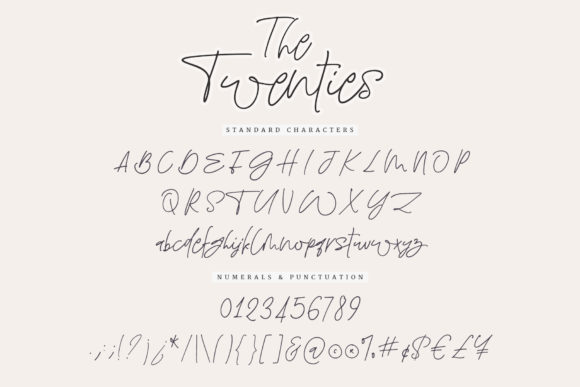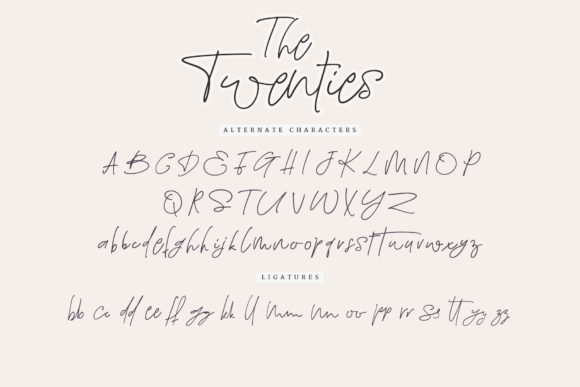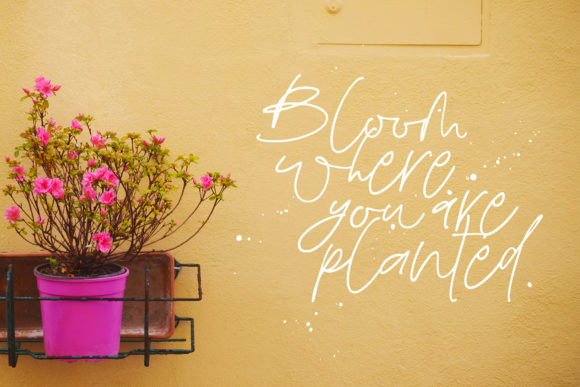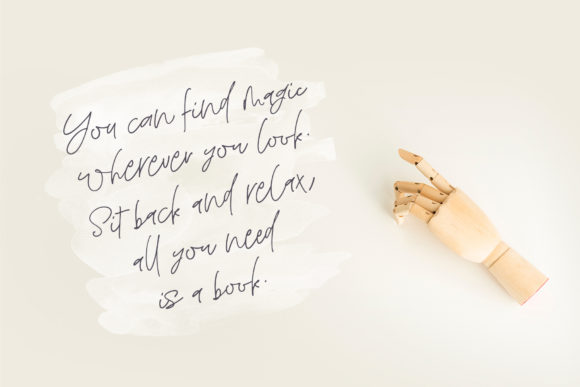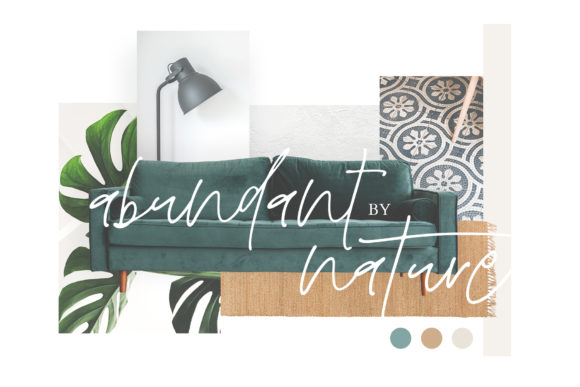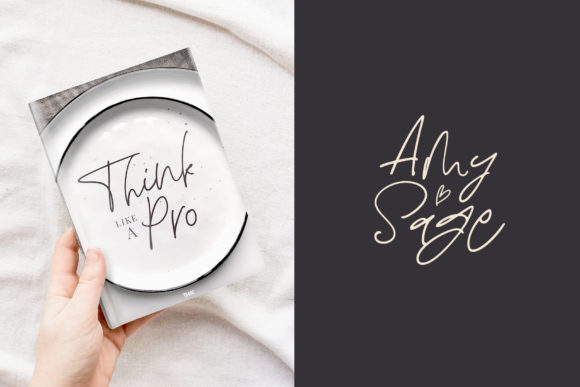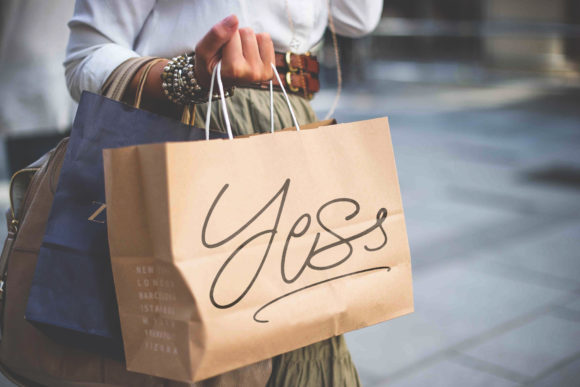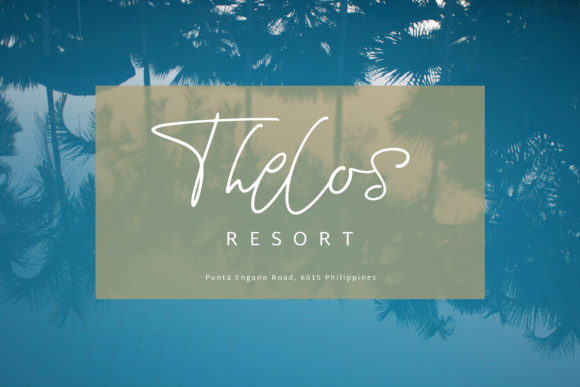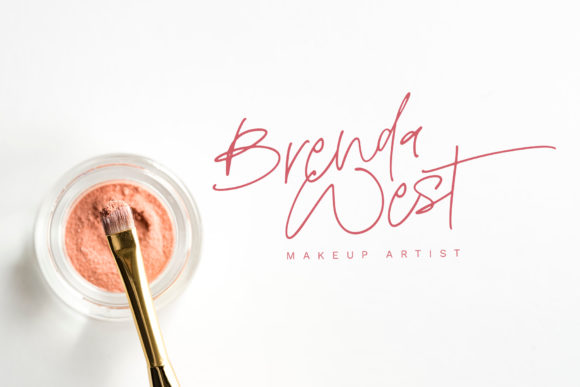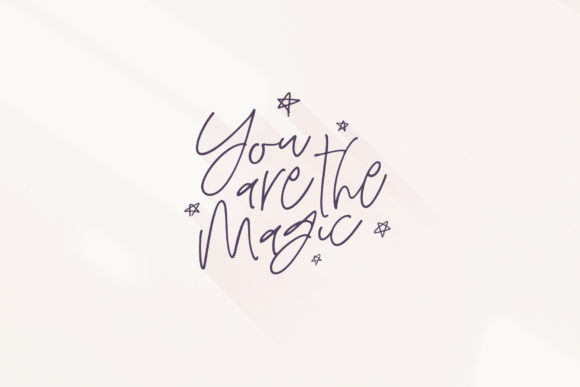
The Twenties Font
About The Twenties Font
The Twenties is a sweet & stylish signature font that displays eye-catching, genuine hand-lettered strokes. It features a complete set of alternate letters, ligatures and some terminal forms to sustain the hand written style.